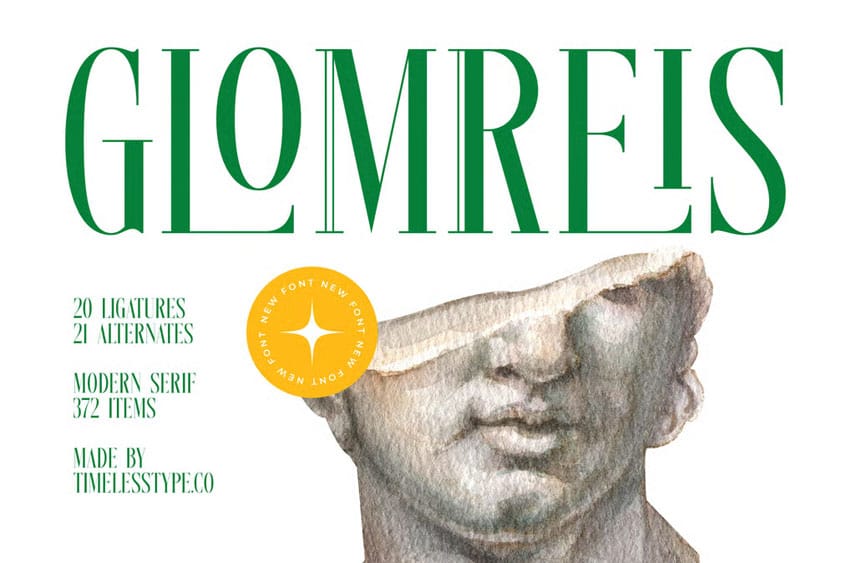
Glomreis Font is a modern serif display font built with tall proportions, sharp elegance, and contemporary editorial finesse. Its refined vertical structure, minimalist contrast, and sculpted curves make it perfect for luxury branding, artistic posters, editorial headlines, packaging, or any design that needs a stylish modern-classic energy.
The font includes expressive ligatures and carefully crafted alternates that elevate the flow and add personality without overwhelming the clean aesthetic. Whether you’re designing minimalist layouts or high-visual identities, Glomreis offers a distinct, sophisticated presence that stands out effortlessly. FEATURE :